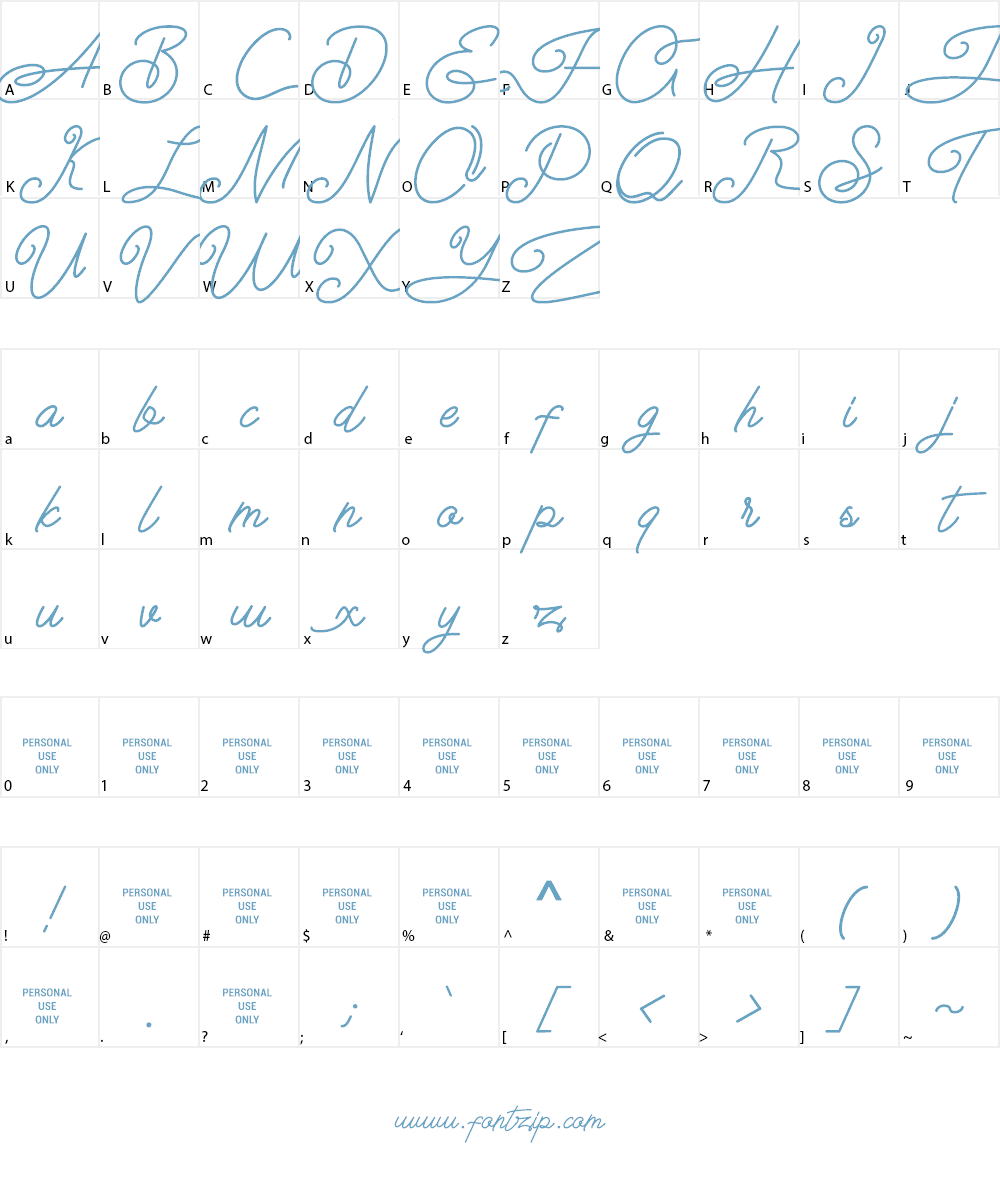
Airlangga a Monoline Script font with a casual look and a signature style.
Airlangga is perfect for your upcoming projects. This script is casual and clean which makes it perfect for many designing needs such as logos, blog headers, wedding invitations, branding, t-shirts, posters & many more type of projects!
Airlangga is nice too if use it in any design style.